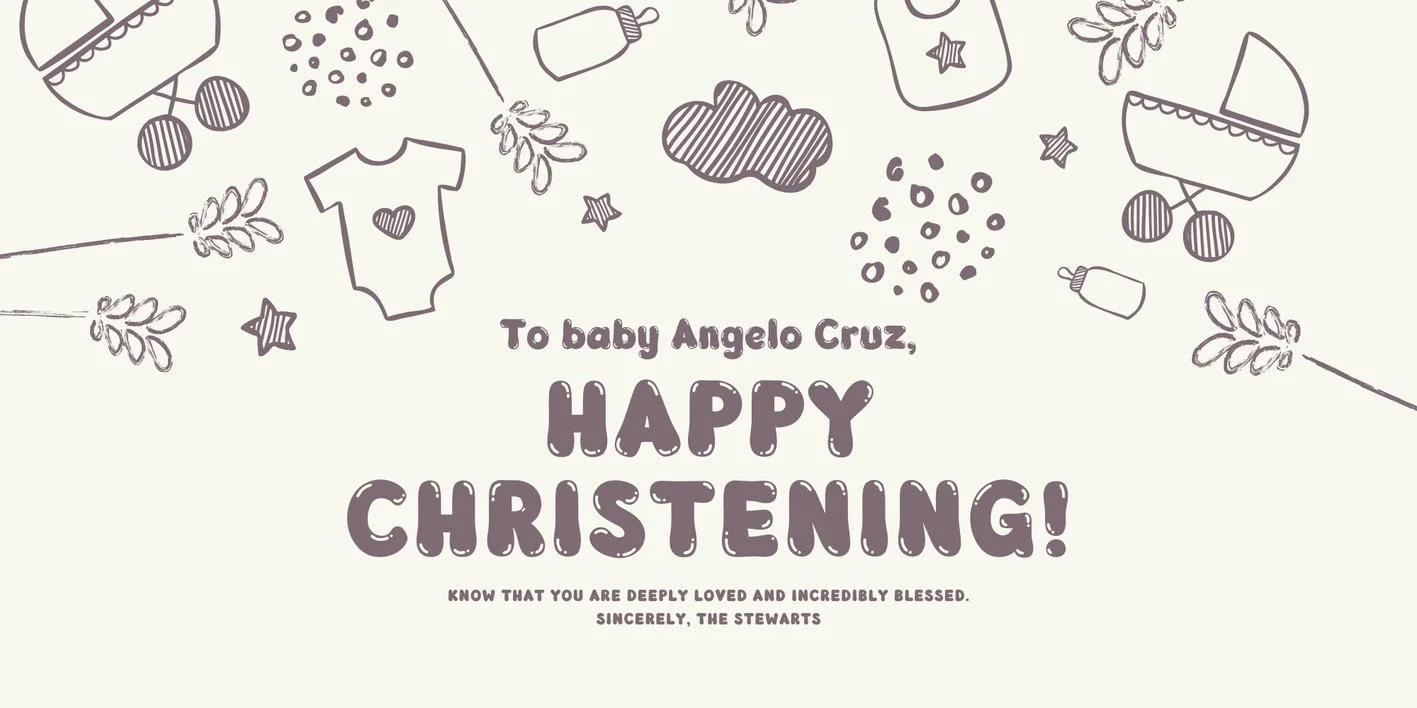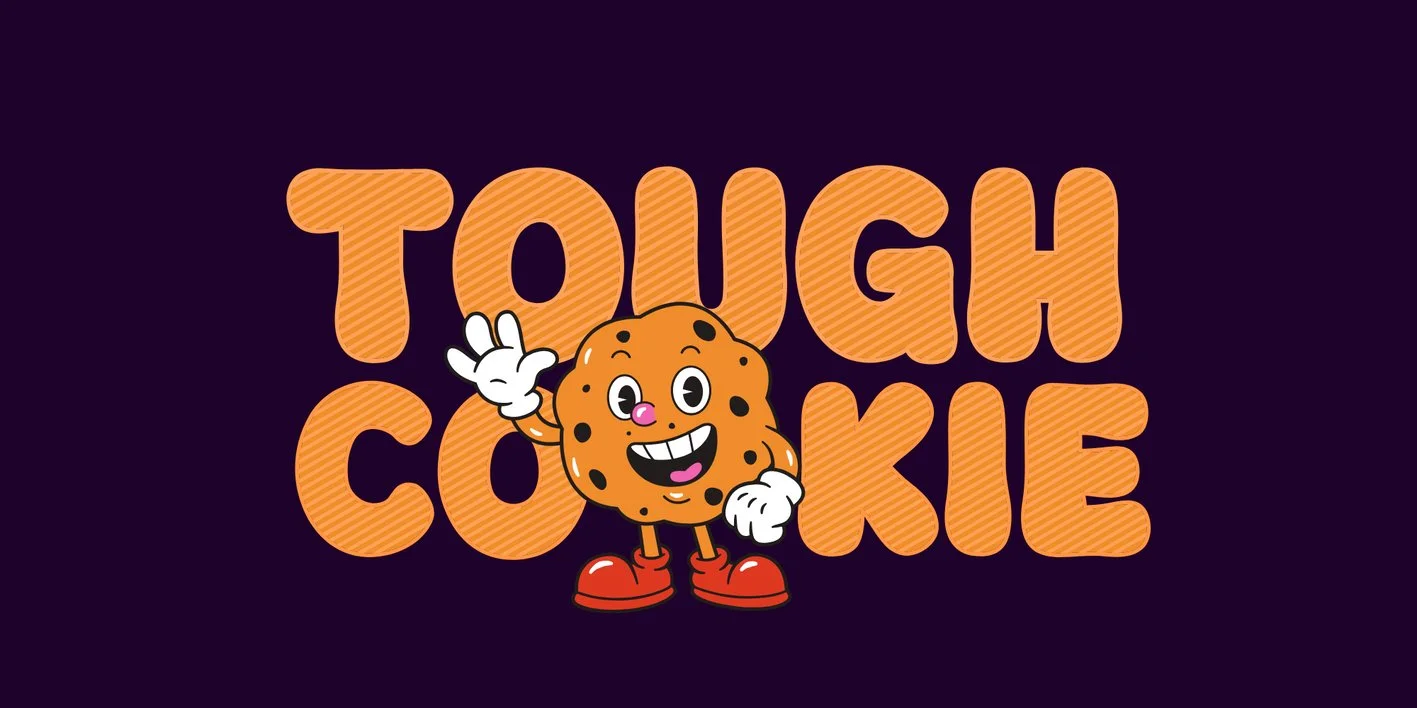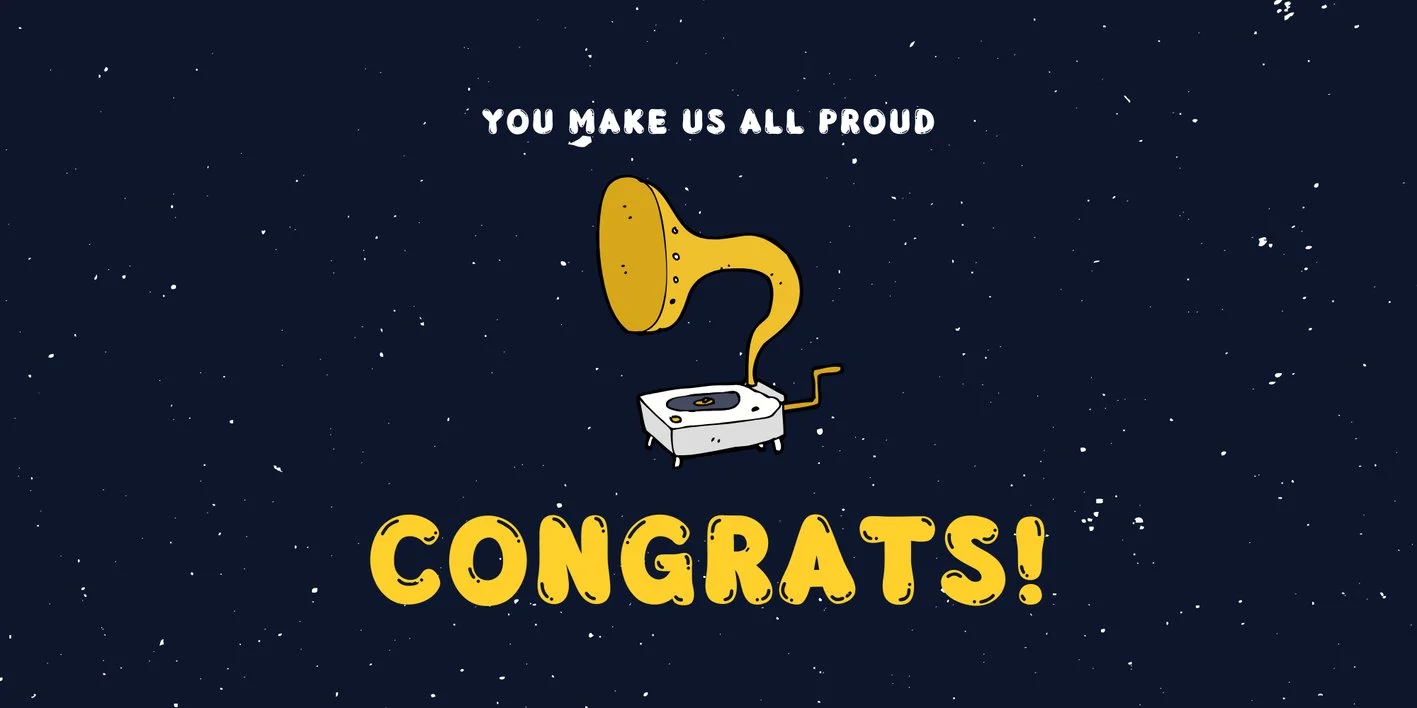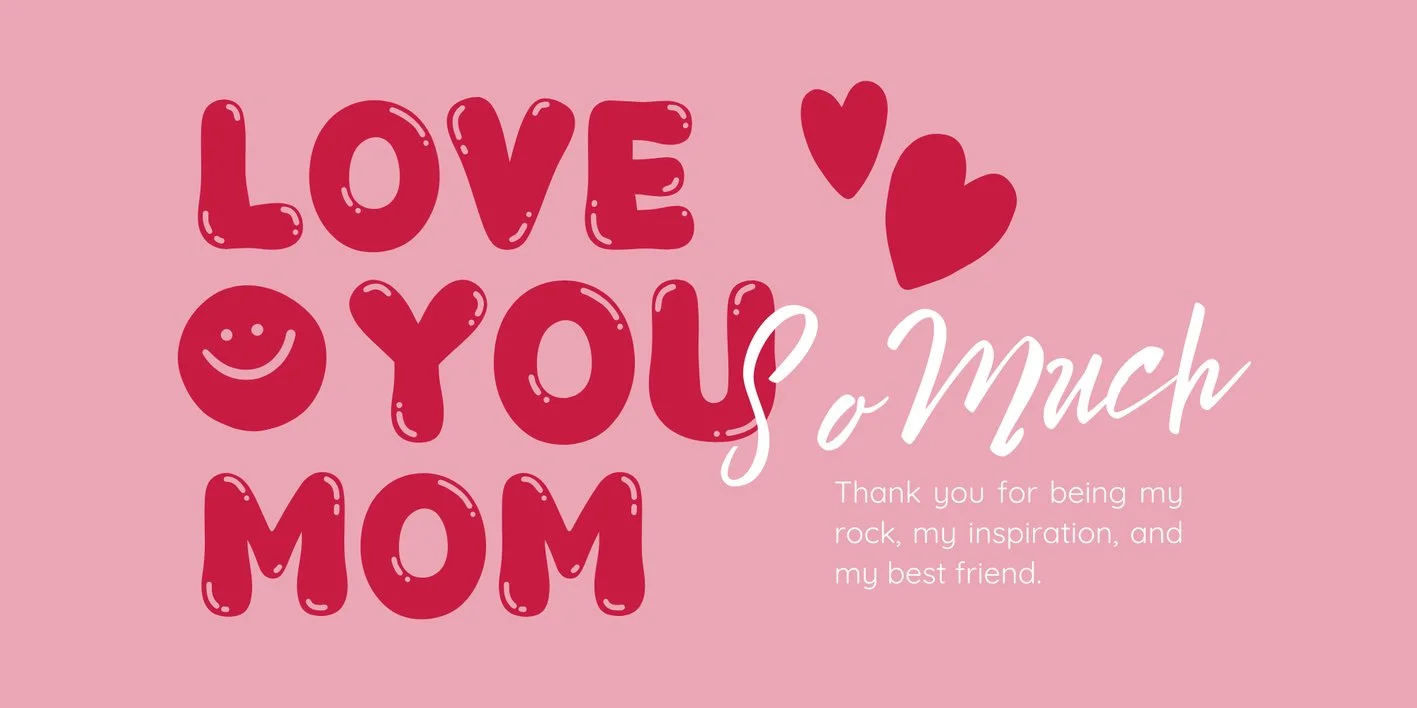
Fox Fluffy Font
There is a particular satisfaction in finding a typeface that delivers optical balance across all weights without compromise. Fox Fluffy consistently provides it. The typeface brings a versatile sensibility to a broad range of creative disciplines, with versatility across print and screen contexts that holds up whether the work is print-first or screen-first.
In practice, Fox Fluffy proves particularly effective for web design, editorial layouts, social media graphics, signage systems, product labels. Designers reaching for it find that the type decisions feel resolved rather than laboured — a useful quality when client timelines are tight.
The range of applications extends to logo design, annual reports, environmental graphics, brand identity systems. That breadth is deliberate: the proportions and spacing were stress-tested across a wide range of mock briefs before the typeface was finalised.
At smaller sizes the design retains its character without becoming cluttered. This resilience across scales makes Fox Fluffy equally suitable for a business card and a billboard — a useful property when assets must scale across a campaign.
Freelance designers across print and digital disciplines find Fox Fluffy a reliable choice for projects that demand both personality and restraint. The design avoids the self-conscious quirkiness that dates quickly, settling instead for considered distinctiveness that holds up over time.